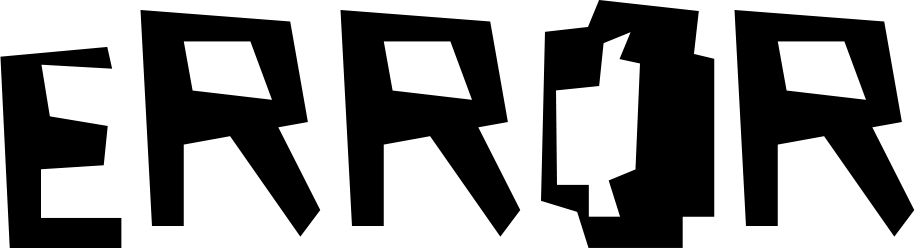
Helvetica Grosse Bit Font
Sometimes all your text lacks is just a bit of spark. So, if that’s the case, you better allow Helvetica Grosse Bit to take charge. This distorted font is just a set of capitals, with no lowercase version, digits, or punctuation.
Turns out these trendy technological letterforms are more than enough for Helvetica Grosse Bit to inspire determination as a remarkable characteristic of your next apparel, website banner, book title, and so on.
Typo conçue depuis les dessins des caractères gras de l’Helvetica.